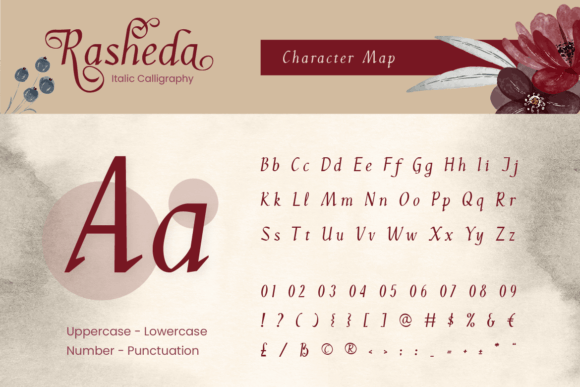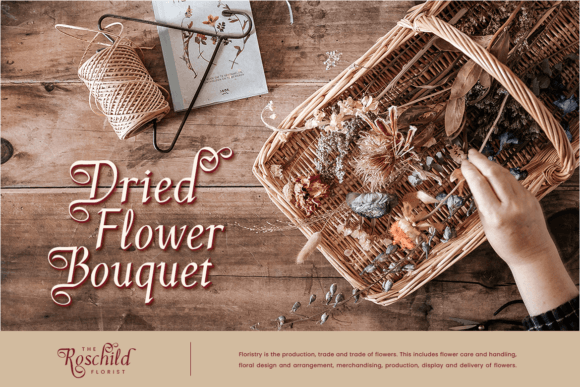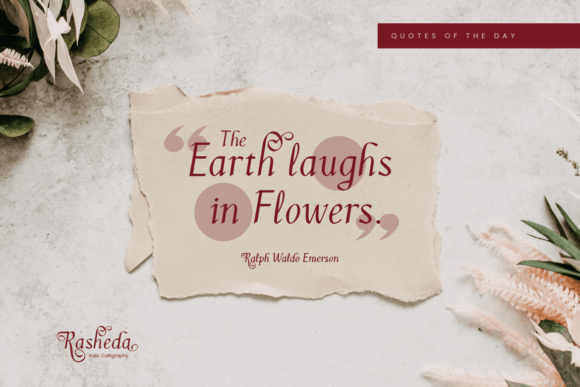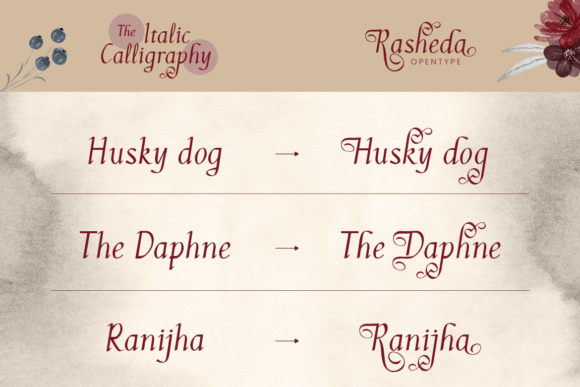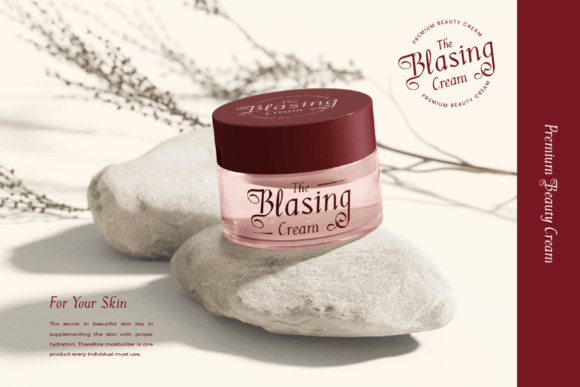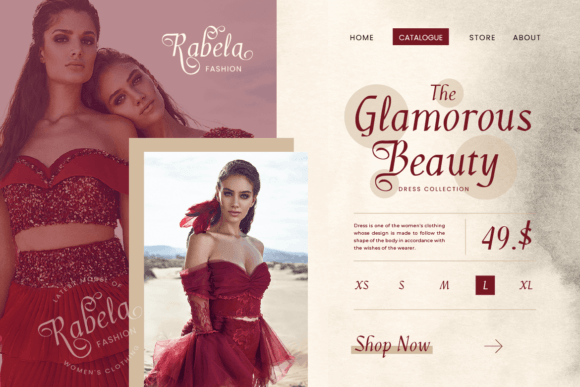
Introduction to Rasheda Font
Have you ever been captivated by a beautifully crafted logo or a movie title that seems to dance on the screen? For designers, creating a lasting impression is key, and the right font can make all the difference. As you sit at your desk, brainstorming ideas for your next creative project, you might be searching for the perfect design resource to elevate your work.
Enter the Rasheda Font, a stunning italic font inspired by the classic cursive calligraphy of the Renaissance era. With its elegant, flowing lines and sophisticated feel, this font is a valuable addition to any designer’s toolkit. Whether you’re working on a logo design, a social media campaign, or a book title, the Rasheda Font is sure to bring a touch of sophistication and creativity to your project.
Key Features of Rasheda Font
- Rasheda Font is a high-quality, free design resource ideal for creative projects that require a unique and elegant touch.
- It comes with a transparent background, making it easy to use in various design applications and backgrounds.
- Rasheda Font is available in a single size, making it easy to use in various design contexts, with a resolution of 300 DPI for high-quality printing.
- One of its unique characteristics is the beautiful, flowing script style that adds a touch of sophistication to any design project.
- Rasheda Font is a versatile design resource that can be used in a variety of creative projects, from invitations and cards to logos and branding materials.
- The font’s high-quality design and transparent background make it an excellent choice for designers looking for a reliable and easy-to-use design resource.
Honest Review: Rasheda Font
I recently stumbled upon the Rasheda Font and was excited to give it a try. As a designer, I’m always on the lookout for high-quality design resources that can elevate my creative projects.
What works well: ✨ The Rasheda Font is incredibly versatile, with a modern and elegant feel that’s perfect for a wide range of applications. I was impressed by its legibility, even at smaller font sizes, making it ideal for digital designs. Additionally, the font’s transparent background feature is a great asset for creative projects where layering is essential.
What doesn’t work so well: ⚠️ While the Rasheda Font is free to download, I did notice some limitations with its character set. The font lacks some essential punctuation marks and symbols, which can be a hindrance for designers who need to use them frequently.
Overall, I’m pleased with the Rasheda Font and would recommend it for designers who are looking for a high-quality, free design resource. While it may not be perfect, its strengths outweigh its limitations, making it a valuable addition to my design toolkit.
Key features:
- Transparent background feature
- Modern and elegant feel
- Legible at various font sizes
Rasheda Font
Rasheda Font is a high-quality design resource ideal for creative projects that require a unique and stylish touch. This font features a transparent background, making it easy to customize and integrate into your design.
Using Rasheda Font in Design Software
Rasheda Font can be used in a variety of design software, including:
Canva is a popular design platform that allows you to create professional-looking designs without extensive design experience. To use Rasheda Font in Canva, simply upload the font file and select it as the font for your text.
To use Rasheda Font in Adobe Photoshop or Illustrator, simply install the font file and select it as the font for your text. You can also use the font to create custom graphics and designs.
To use Rasheda Font in PowerPoint or Word, simply install the font file and select it as the font for your text. You can also use the font to create custom presentations and documents.
Tips for Getting the Most Out of Rasheda Font
To get the most out of Rasheda Font, be sure to:
Experiment with different font sizes and styles to create a unique and eye-catching design.
Use the font in conjunction with other design elements, such as images and graphics, to create a cohesive and professional-looking design.
Take advantage of the font’s transparent background to create custom and creative designs.
Can I modify the Rasheda Font for my specific design needs?